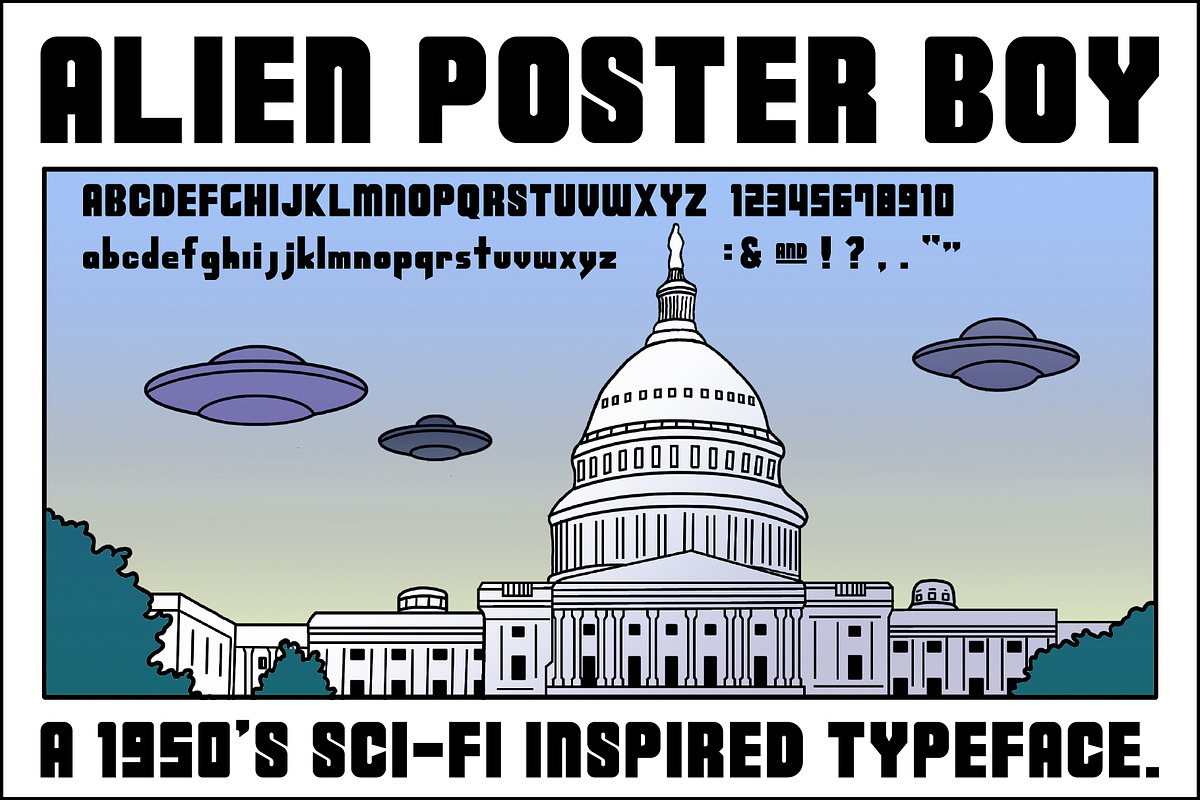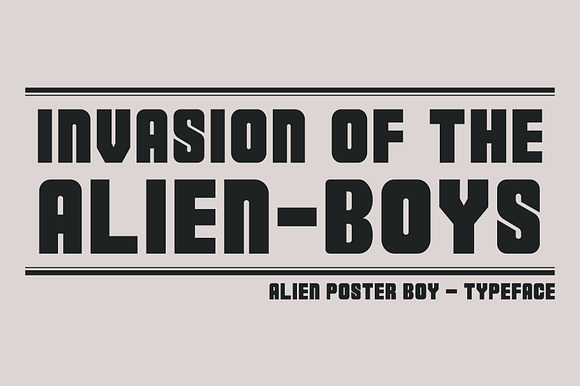
Alien Poster Boy - Typeface
Alien Poster Boy - Typeface Inspired by 1950's Scifi B-Movie Posters
Details: This is an uppercase and lowercase typeface, with symbols, numbers and some alternate characters.
Alien Poster Boy - Typeface by bciii design fits naturally into Branding, posters, packaging, typography.